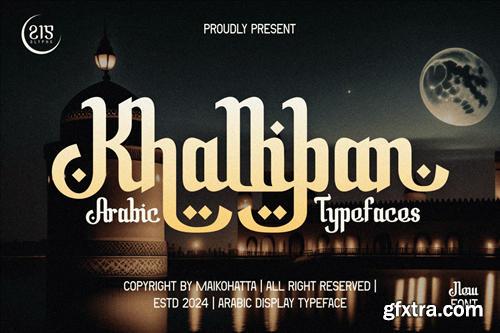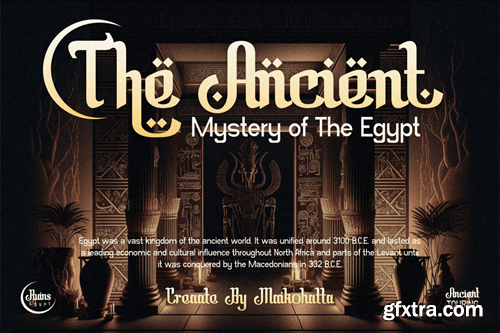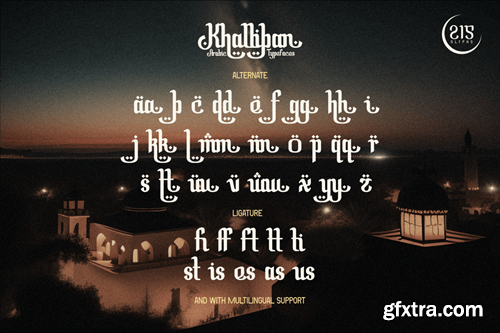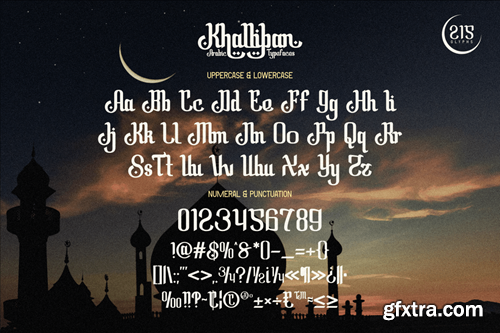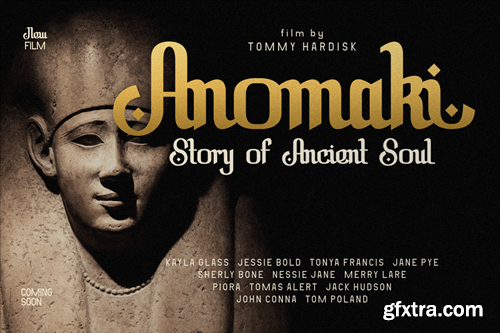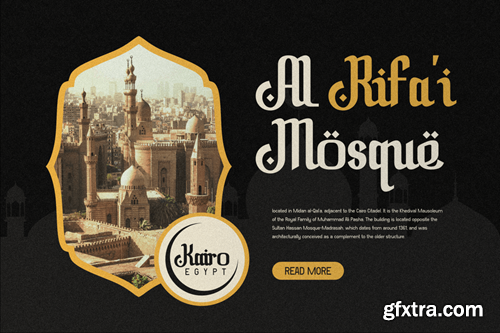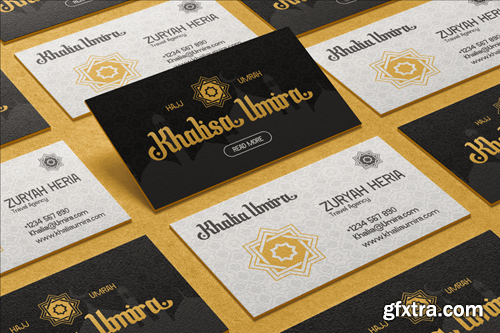
Khalliban - Arabic Typeface ZCCQ4Y6
Khalliban - Arabic Typeface
Introducing our new product Khalliban - Arabic Typeface
Varelmo Font Modern Font is a bold and authentic display font. The font is suitable for any branding project like logo, Template Design, esport, and many more. outstanding in a wide range of contexts.
• Uppercase
• Lowercase
• Multilingual
• Alternate
• Ligature